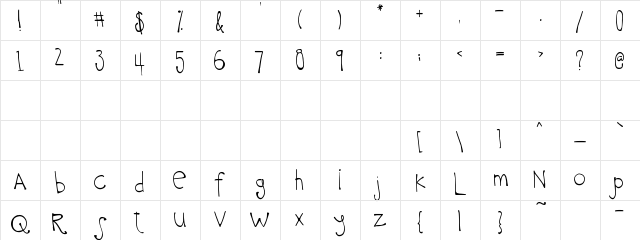
2peas job interview Regular
| Foundry | Two Peas a Bucket |
| Designer | Amy Grendell |
Design Context for 2peas job interview Typeface
2peas job interview offers clean, dependable letterforms without strong stylistic allegiance, making it a practical choice for designers who need flexibility.